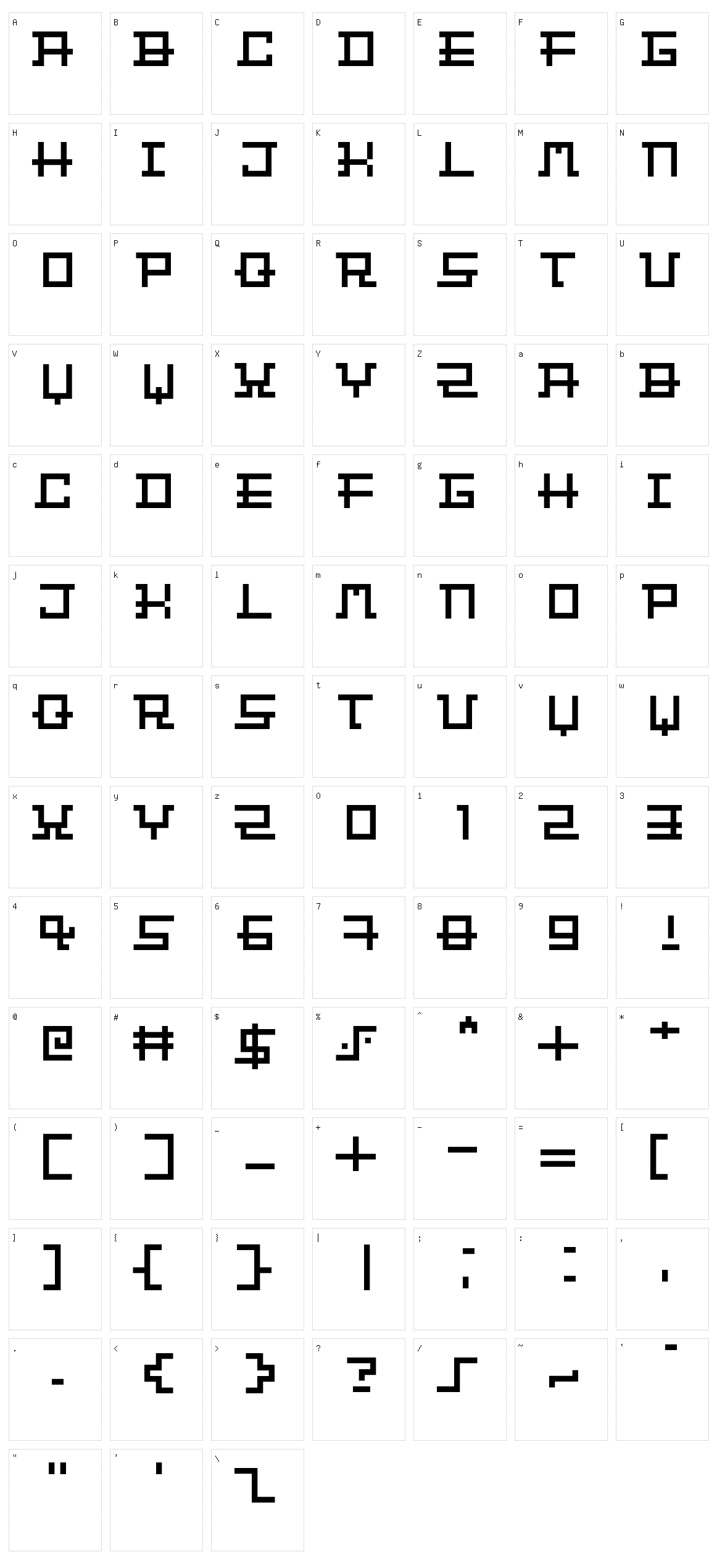
The free font Bit Chips is carefully designed by Hawtpixel, showcasing a thoughtful balance of creativity and usability and falls under the Square font style. When you download the ZIP file, it contains only 250.46 KB of font files, making it lightweight and quick to download. Please review the license details below to understand permitted usage and distribution rights. If license information is not available, we recommend using this font for personal projects only or contacting the author directly for commercial usage permissions.